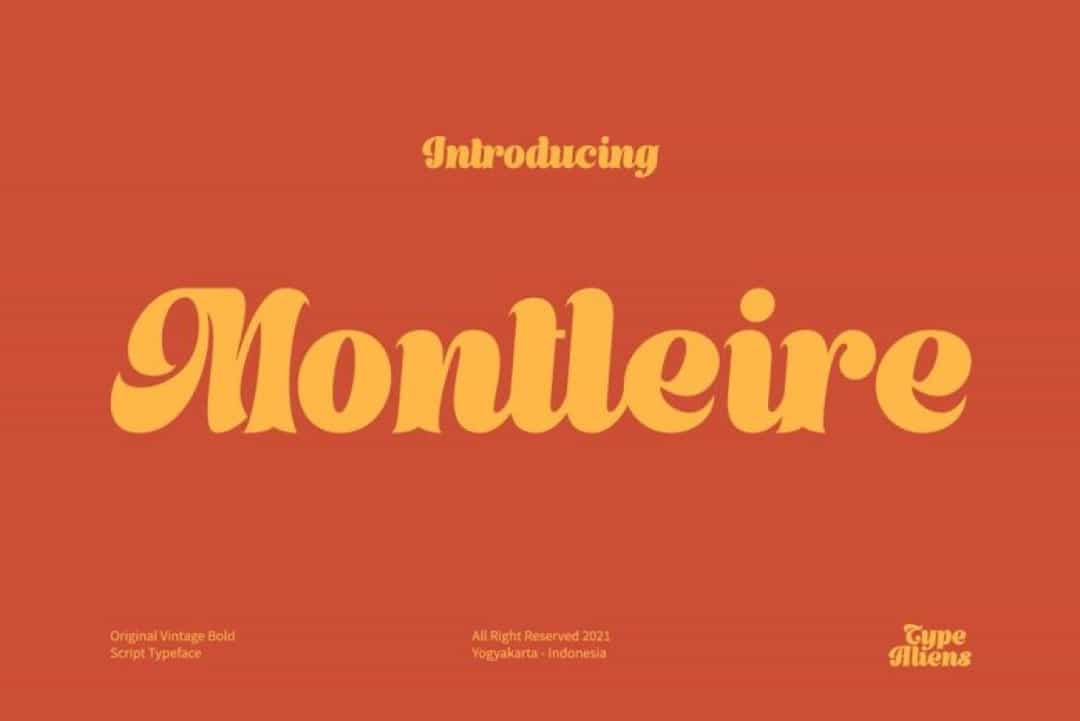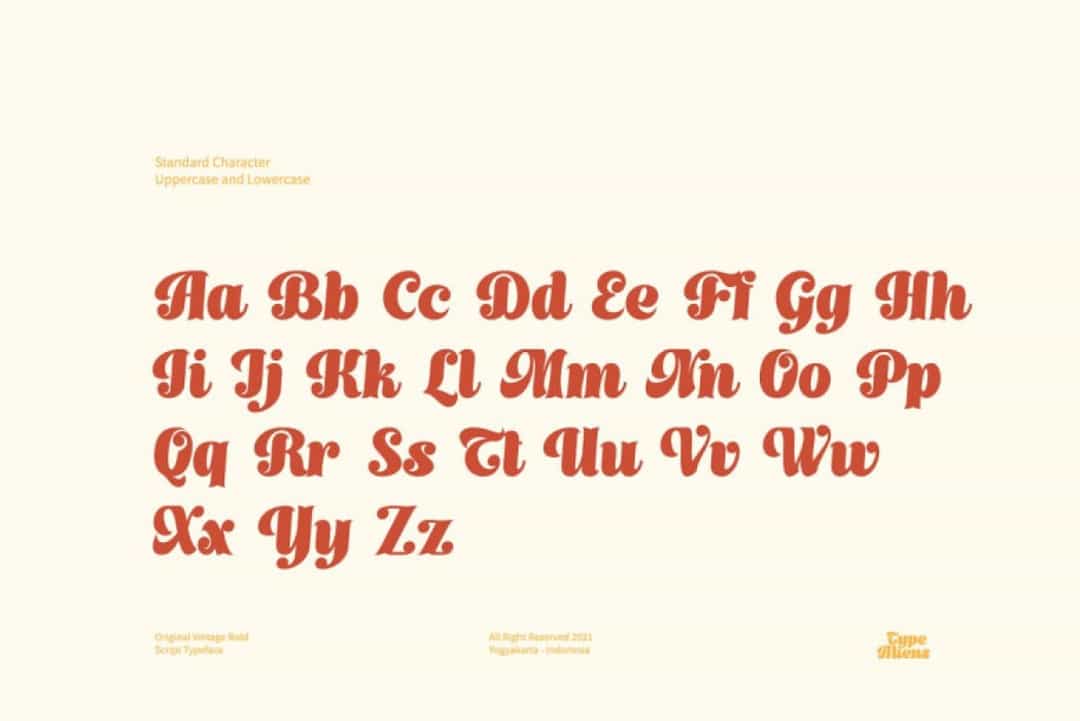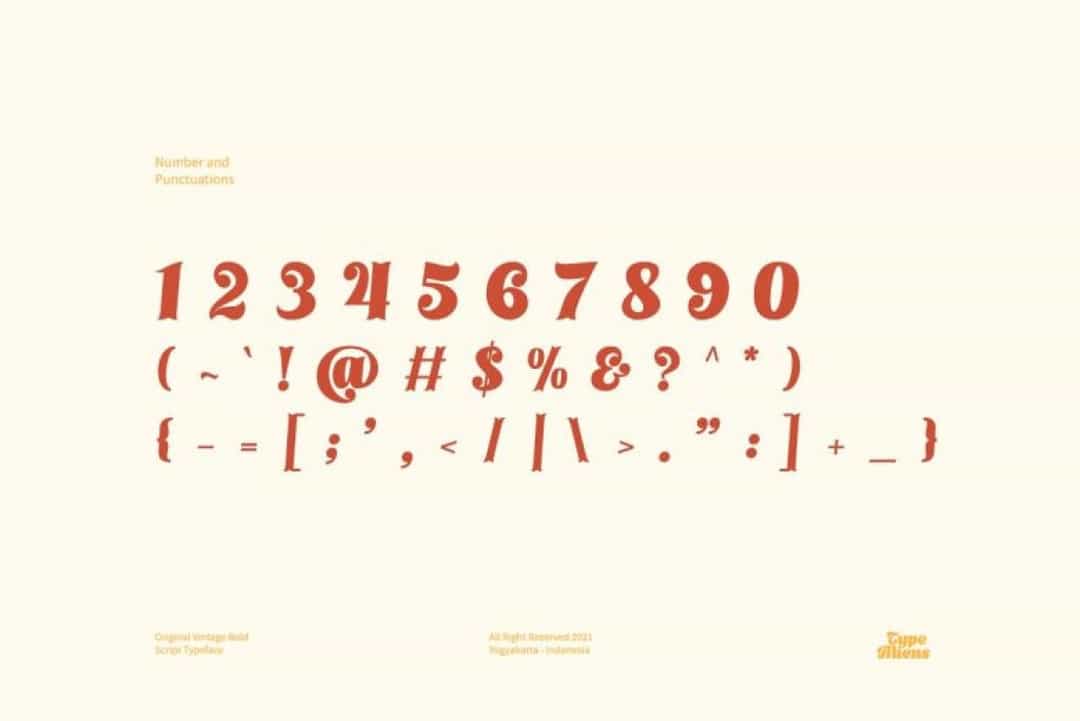
Montleire is an elegant, bold and playful script typeface created to give headlines and logotypes a vintage aesthetic. The font boasts bold energy while also exuding confidence – adding great layers of nostalgia into any layouts!